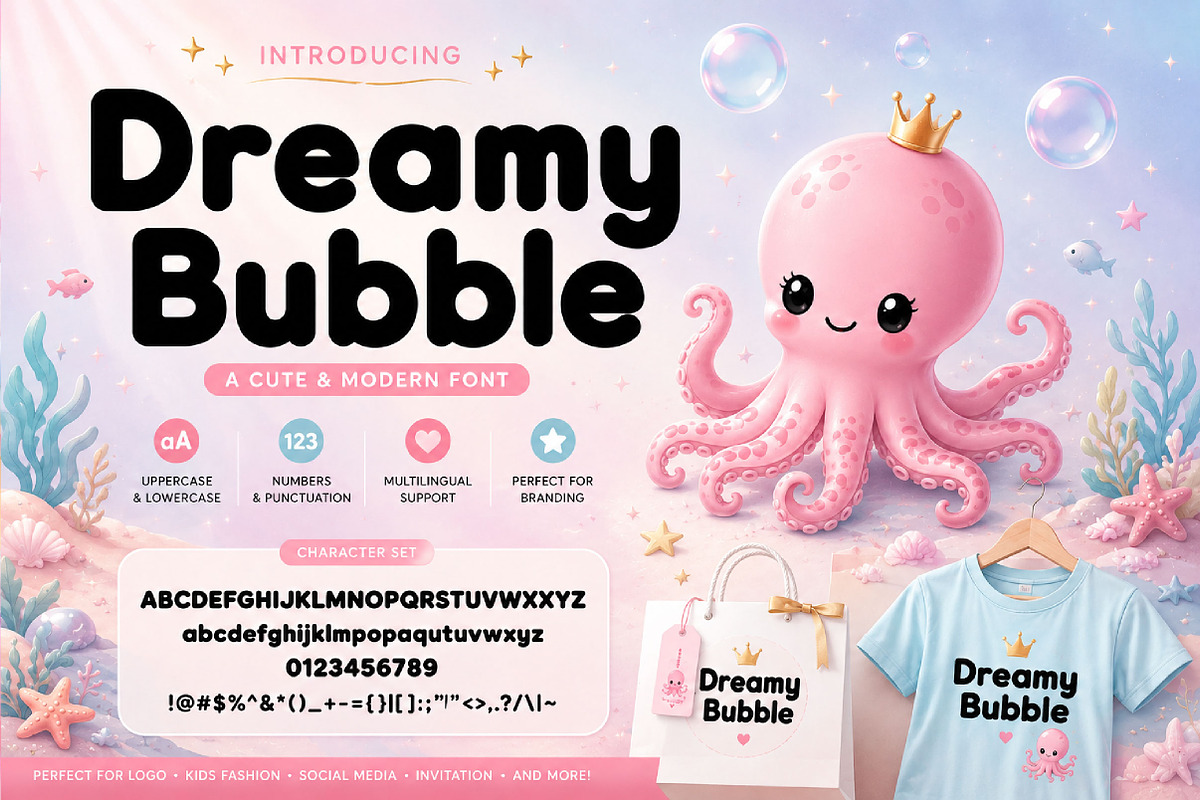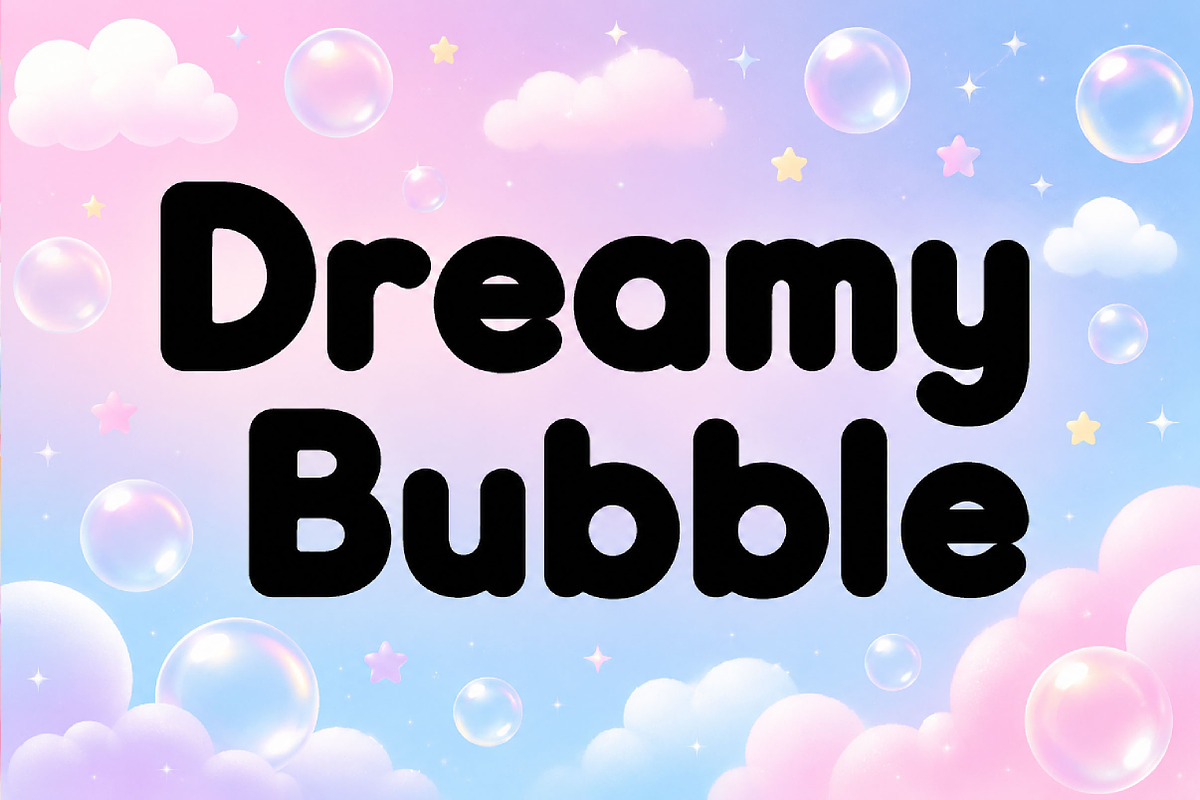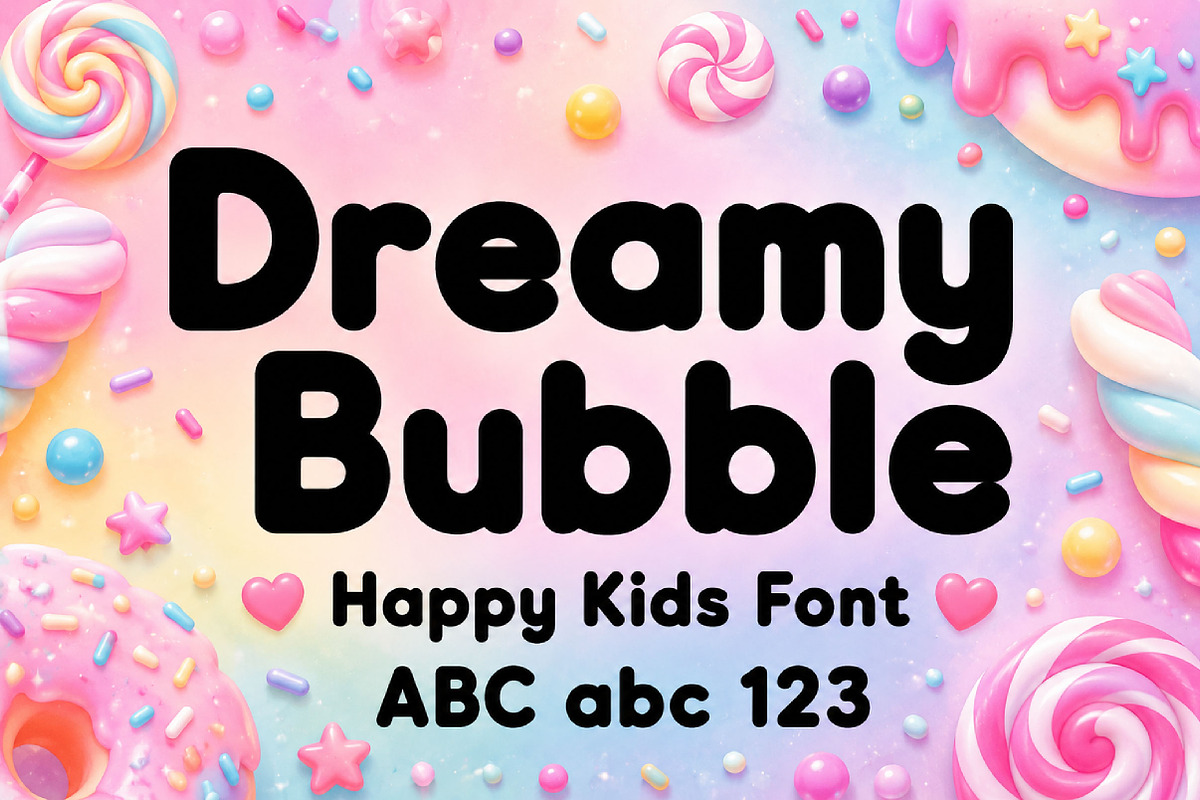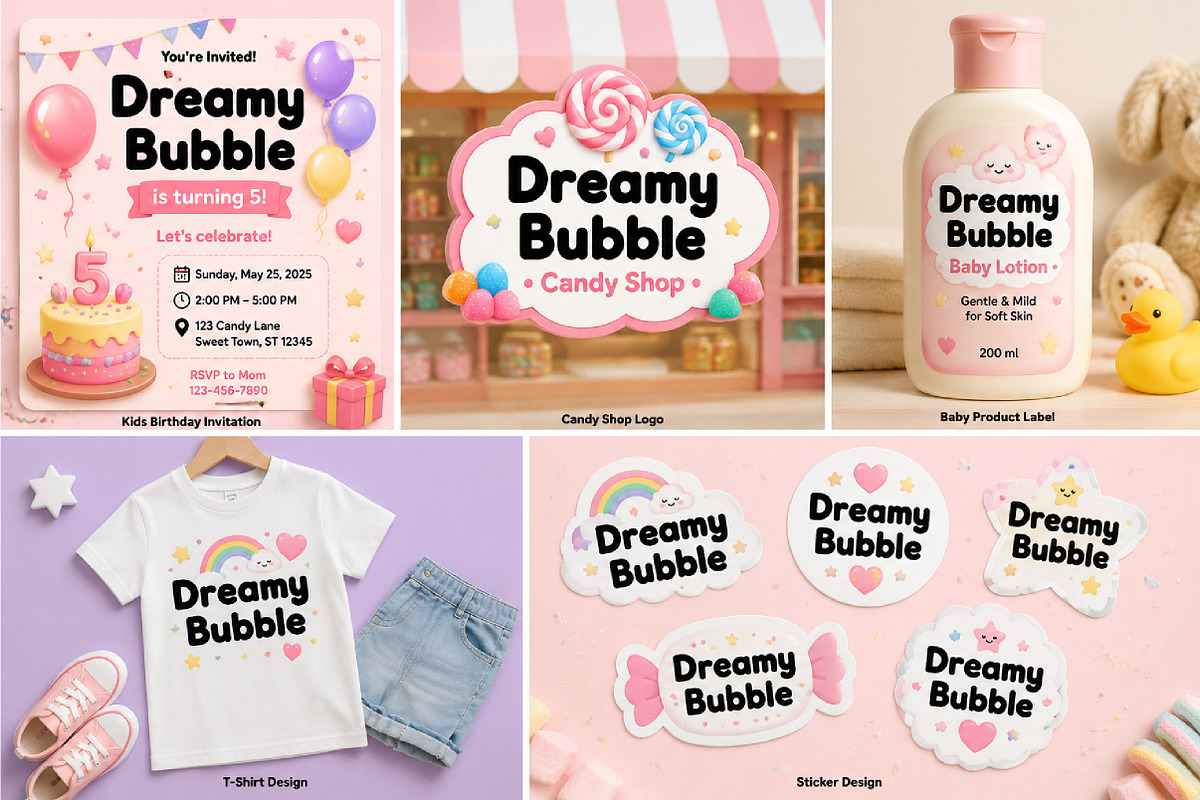
Dreamy Bubble
Dreamy Bubble – Cute Rounded Display Font
Short Description
Dreamy Bubble is a soft, bold, and playful rounded display font, perfect for kids’ designs, logos, stickers, packaging, posters, and cheerful creative projects.
Full Description
Dreamy Bubble is a cute and playful display font designed with soft rounded shapes and bubbly letterforms. Its bold, friendly style creates a sweet and cheerful look that instantly adds warmth, fun, and personality to your designs.
With its smooth curves and adorable appearance, Dreamy Bubble is perfect for creative projects that need a happy and youthful touch. Use it for logos, posters, children’s books, stickers, product packaging, apparel, social media graphics, classroom materials, and playful branding.
The rounded bubble-inspired structure makes this font easy to read while still feeling charming and expressive. Dreamy Bubble is ideal for both print and digital designs that need a cute, friendly, and memorable display font.
Kids’ designs
Posters and headlines
Logos and branding
Stickers and labels
Product packaging
Children’s books
Apparel and merchandise
Classroom materials
Cute and playful themes
Uppercase letters
Lowercase letters
Soft rounded style
Cute bubbly appearance
Bold display design
Friendly letterforms
Perfect for display use